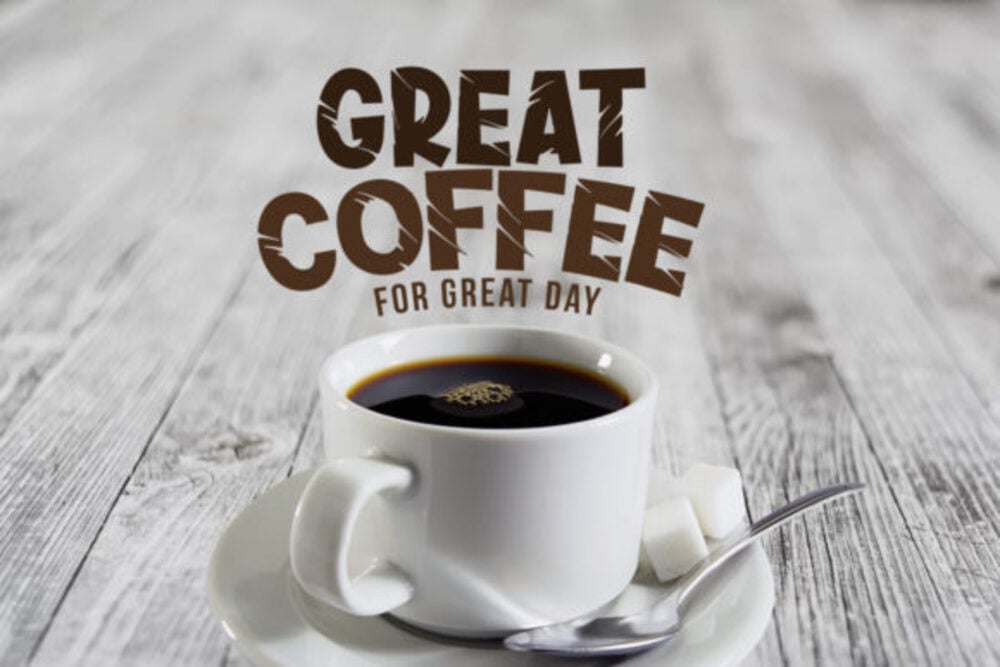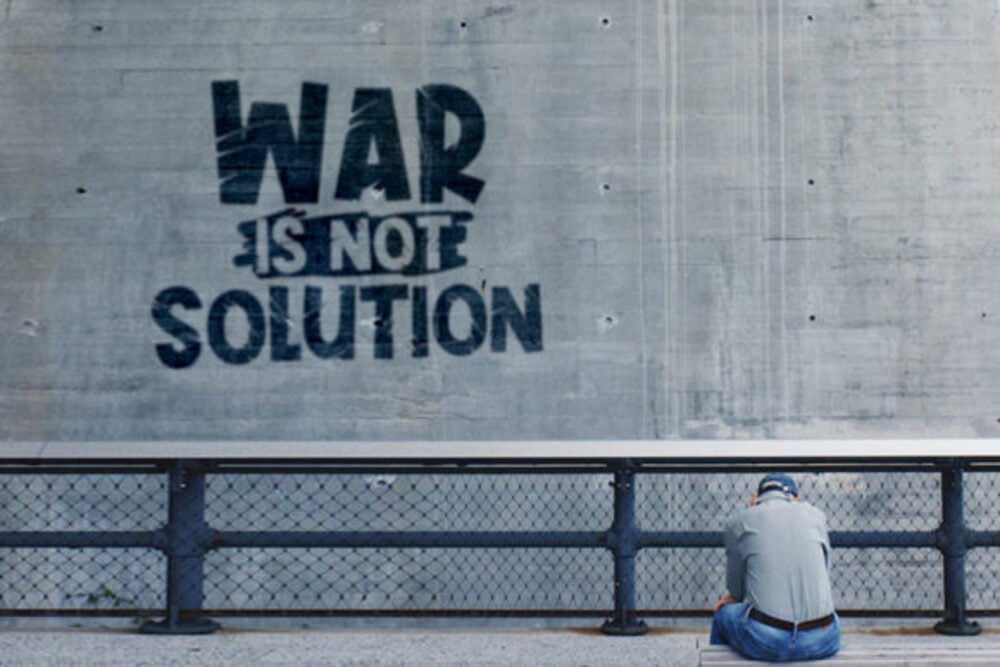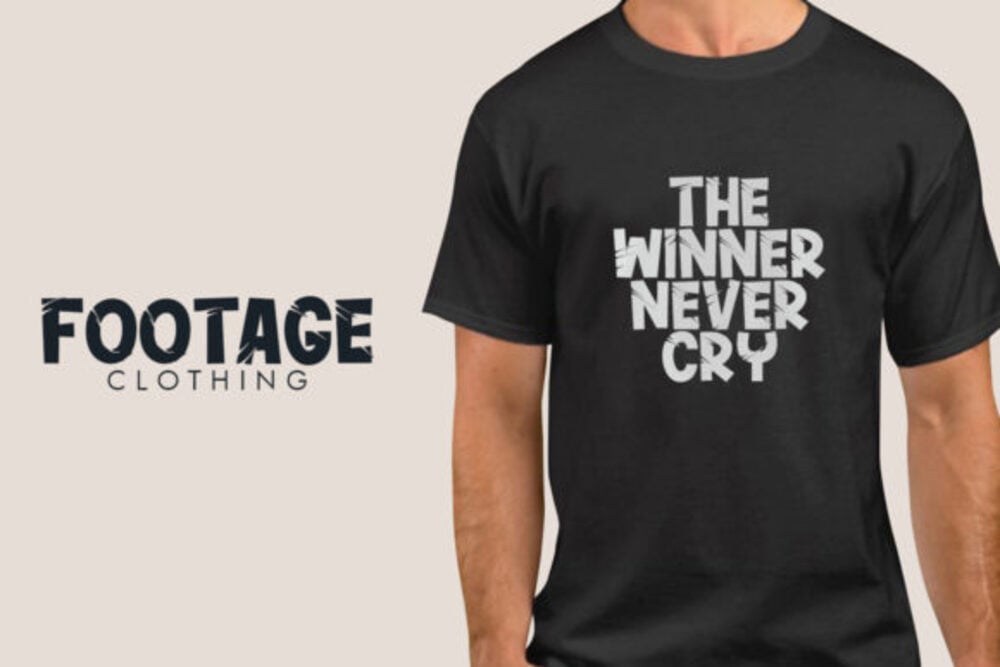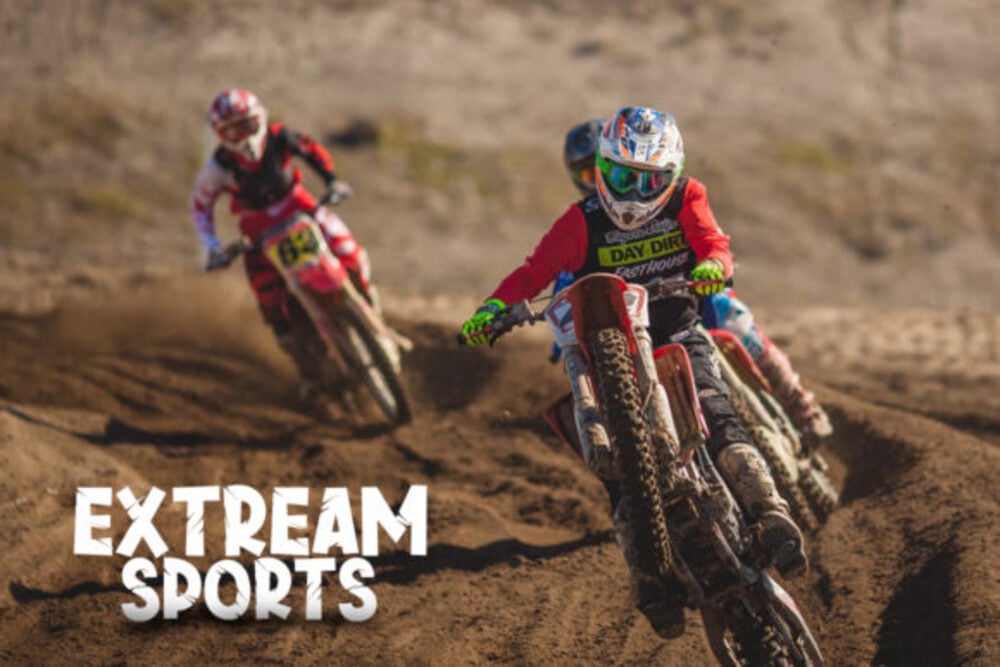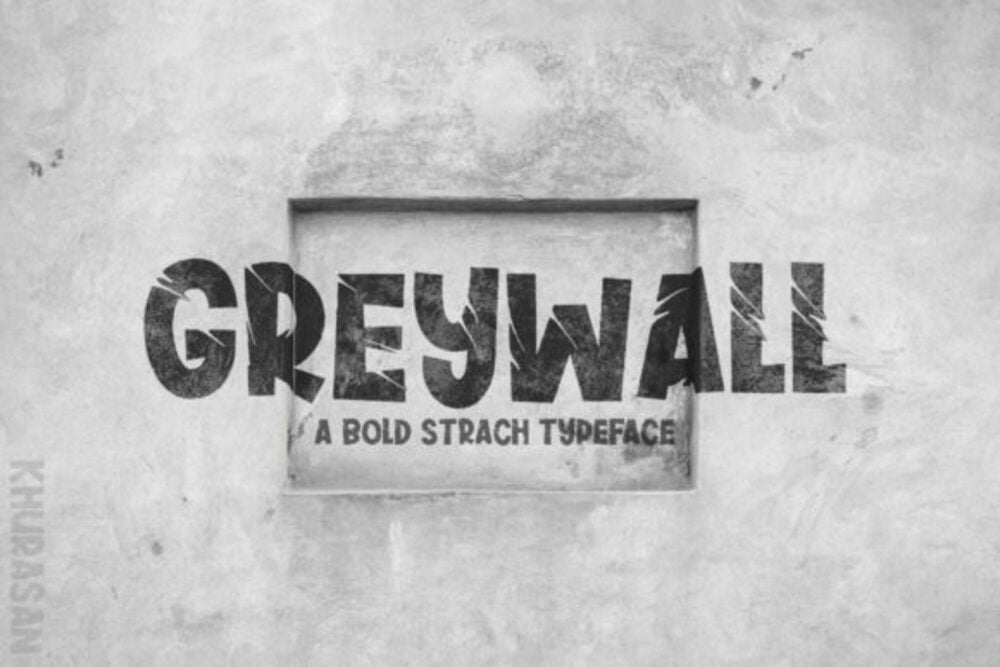
Greywall Font
Greywall is a sleek, modern font with clean, straight lines and sharp edges, giving it an urban, industrial feel. The letterforms are bold and structured, with a minimalist design that enhances readability. Its geometric style makes it versatile for both digital and print designs, evoking a sense of sophistication and contemporary edge. Ideal for branding, headlines, or any design requiring a strong, professional aesthetic.